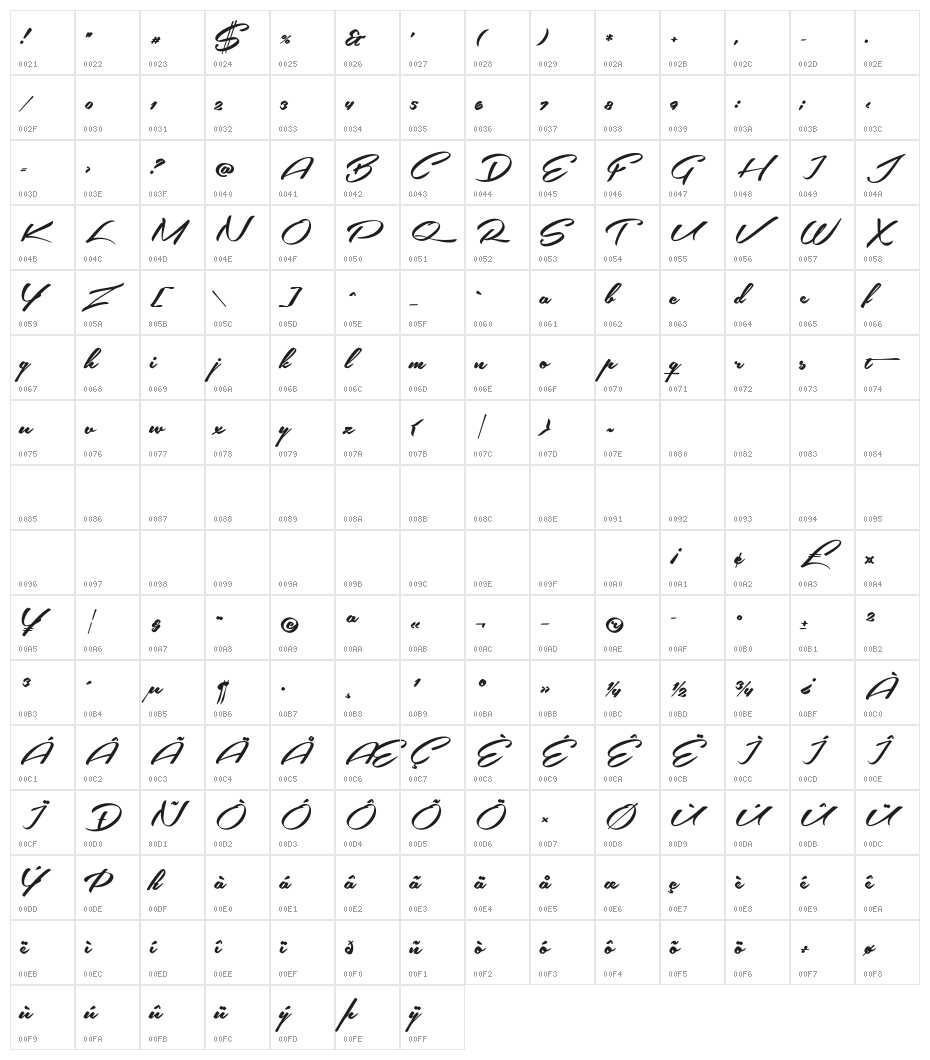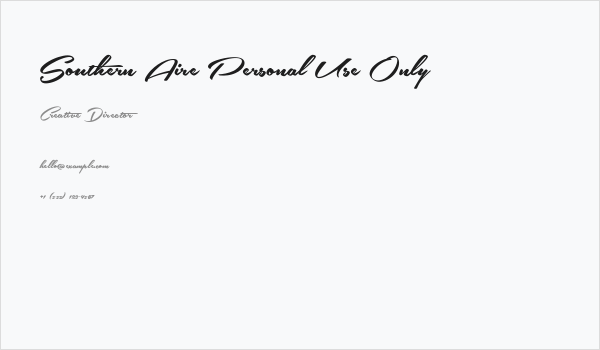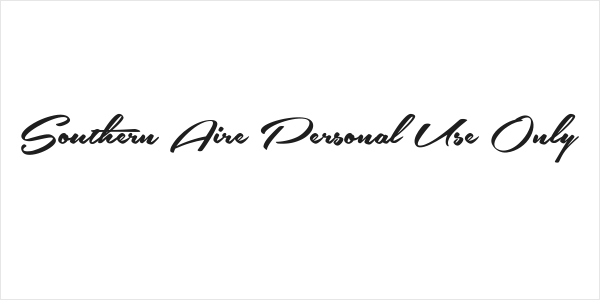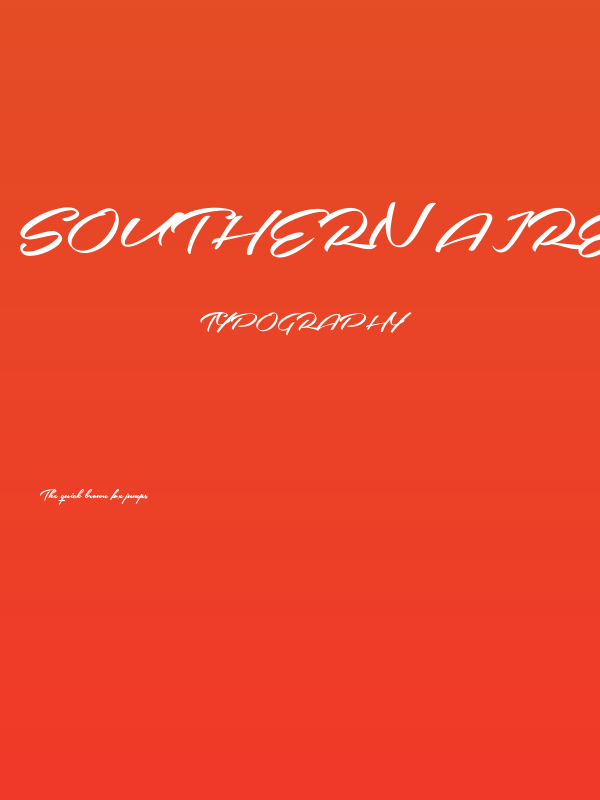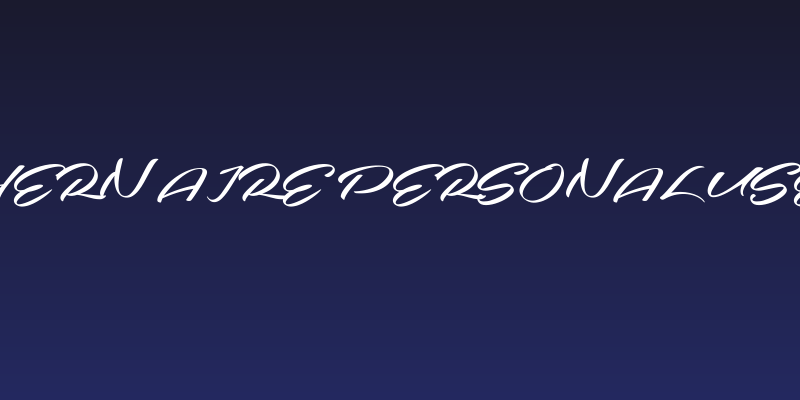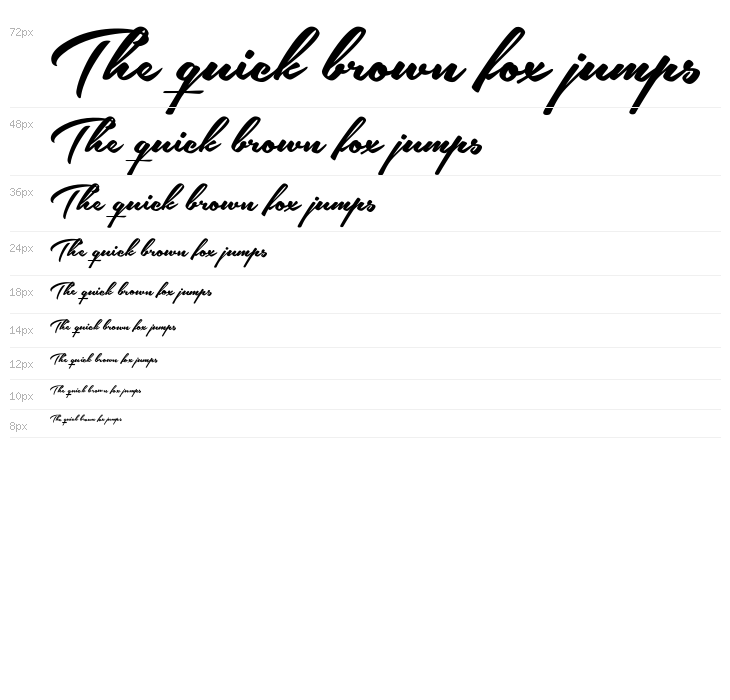
Southern Aire Personal Use Only Font
Southern Aire Personal Use Only Description
This font exudes a dynamic and flowing script style, characterized by its elegant and cursive letterforms. The uppercase letters are bold and sweeping, with a sense of movement and flair, while the lowercase letters maintain a consistent, smooth flow. The numbers and special characters complement the overall aesthetic, adding a touch of sophistication. The font's strokes are moderately thick, providing a balanced contrast that enhances readability while maintaining its decorative appeal. It's perfect for projects that require a personal, handwritten touch, such as invitations, greeting cards, or branding materials.
| Proposed Projects | Ideal for invitations, greeting cards, branding materials, and personal projects. |